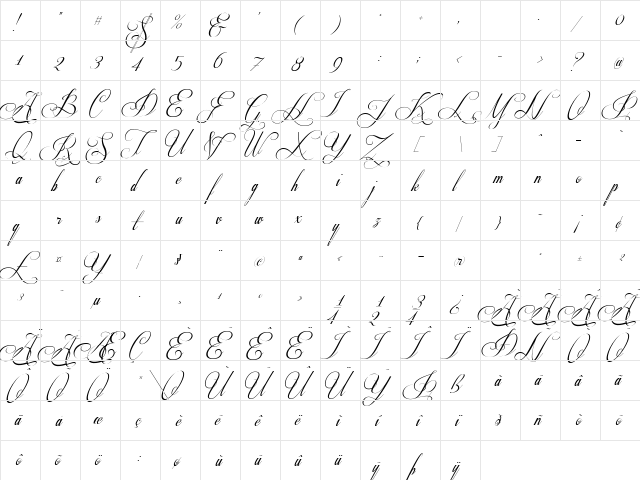
Respective Slanted Regular
Design Context for Respective Slanted Typeface
Respective Slanted is a composed and adaptable typeface that performs quietly and consistently across a wide range of design contexts. Its italic angle brings a sense of urgency and motion to the letterforms.
Pro Tip: Try Respective Slanted for annotation and caption copy alongside an upright companion — the contrast in angle creates a dynamic but ordered typographic system.